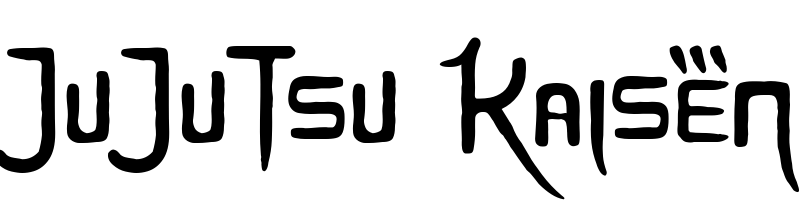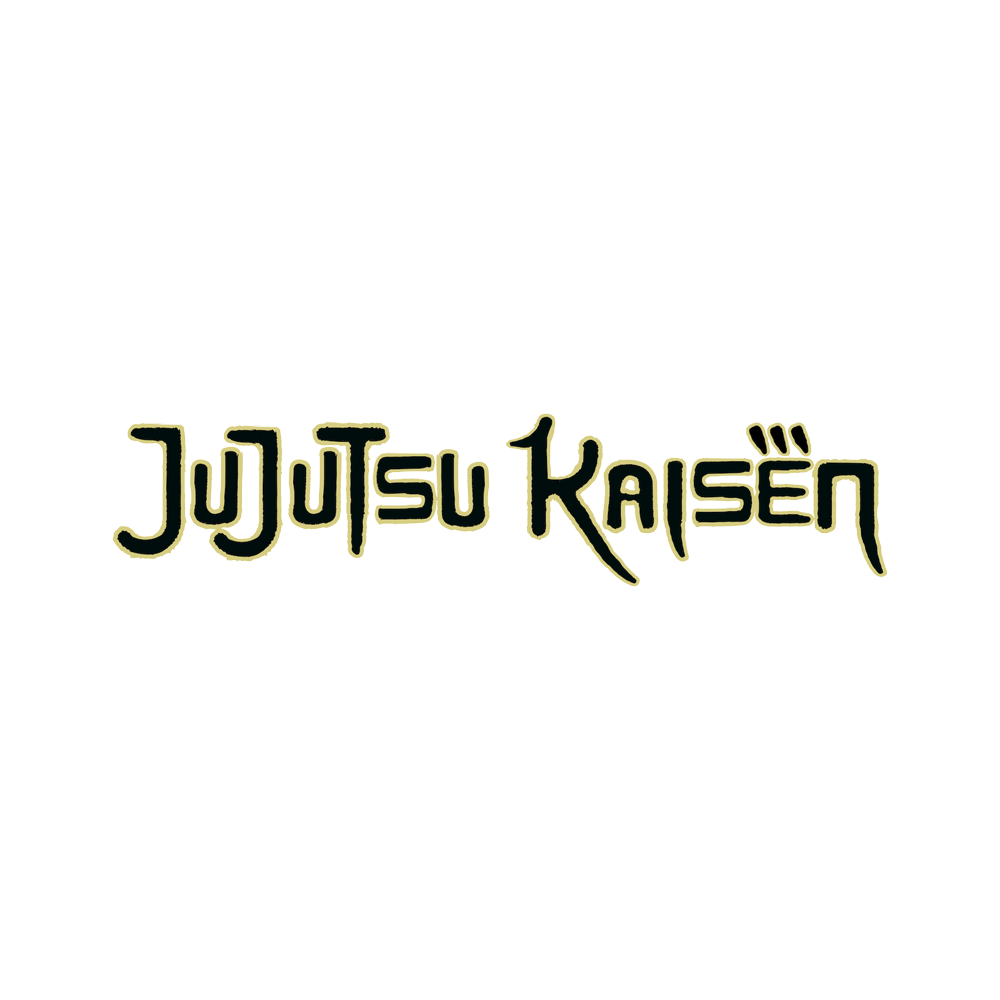
Jujutsu Kaisen Font
Movie & TVJujutsu Kaisen is a Japanese manga and anime series written and illustrated by Gege Akutami, serialized in Shueisha's Weekly Shōnen Jump since March 5, 2018. The story follows high school student Yuji Itadori, who gets involved in the world of jujutsu sorcerers known as the Jujutsu Tech.
The Jujutsu Kaisen font looks like its been handletted although there is a very similar font called Qetod by FontGet. This font is free for personal use but you can get the full font and commercial licence here.